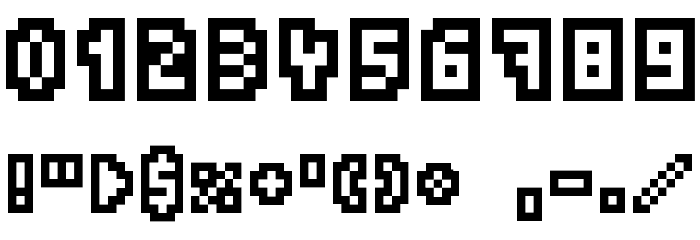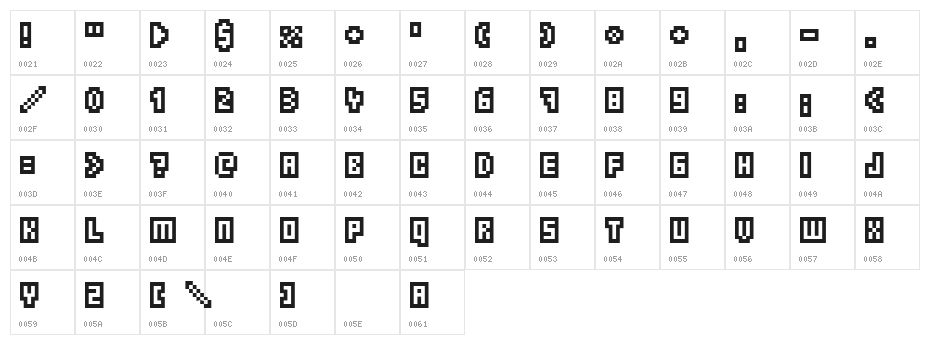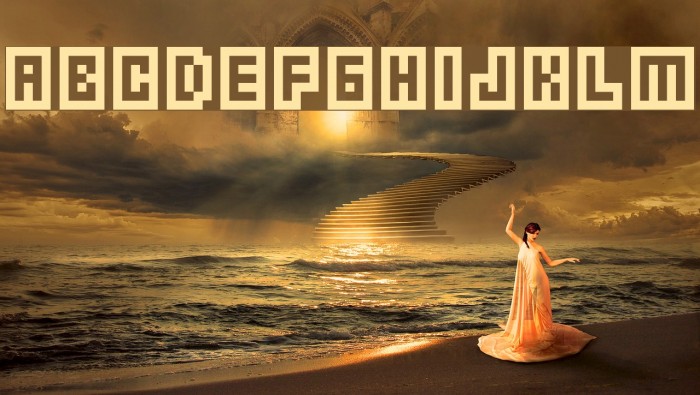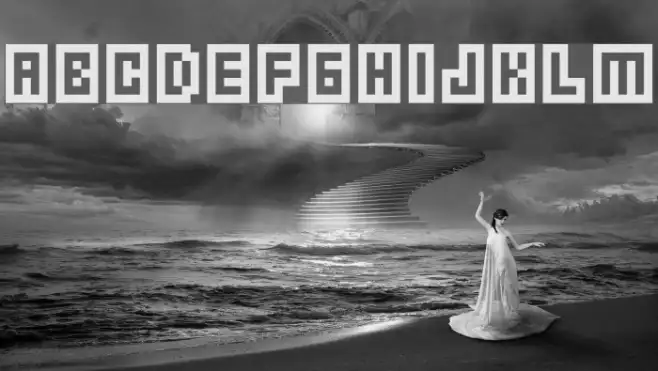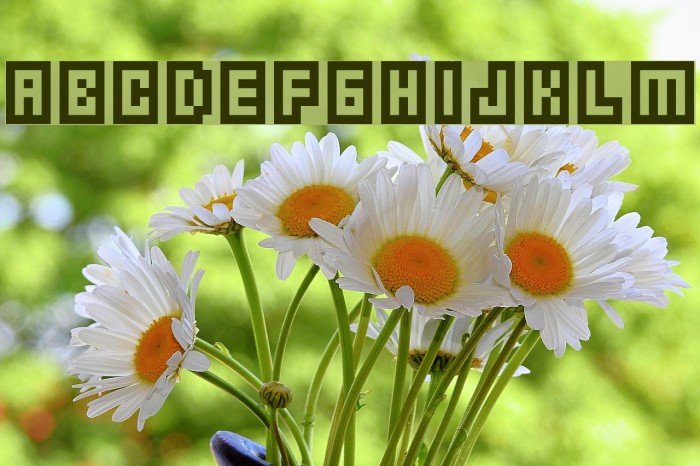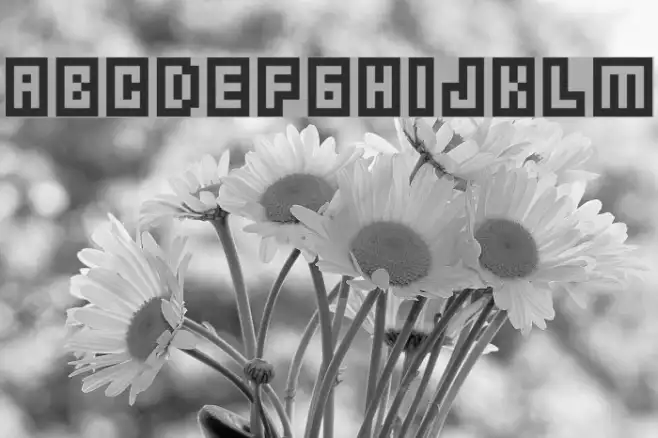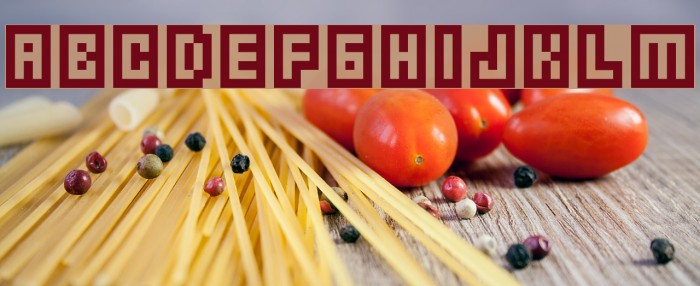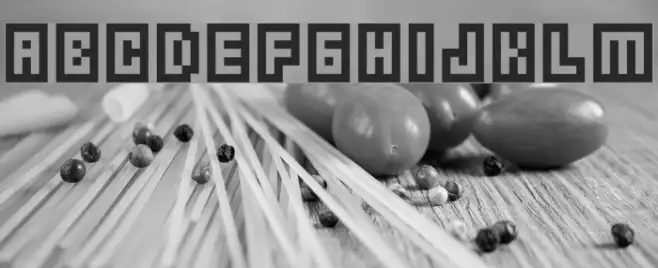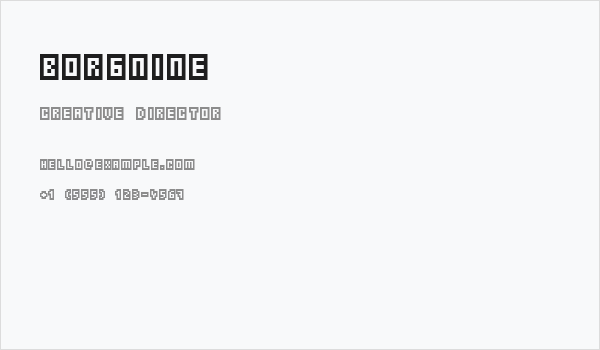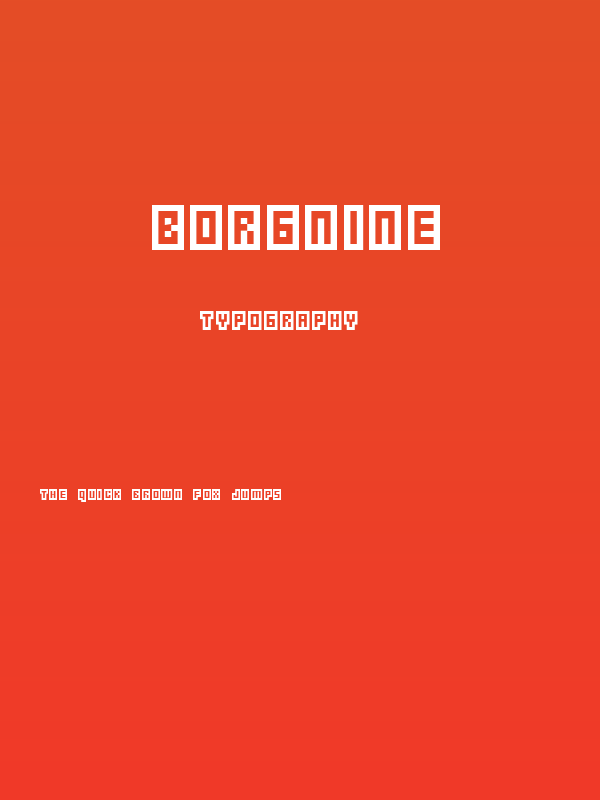
Borgnine Font
Borgnine Description
This font features a bold, pixelated design reminiscent of classic arcade games and digital displays. Each character is constructed with a blocky, grid-like structure, giving it a distinctly retro and digital aesthetic. The uppercase and lowercase letters share a uniform height and width, contributing to a monospaced appearance. The numbers and special characters maintain the same pixelated style, ensuring consistency across all glyphs. This font's geometric and modular design makes it ideal for projects that aim to evoke a sense of nostalgia or a digital, tech-inspired theme.
| Use Case | Headlines, Logos, Digital displays |
| Proposed Projects | Ideal for video game design, digital art projects, retro-themed posters, and tech-inspired branding. |